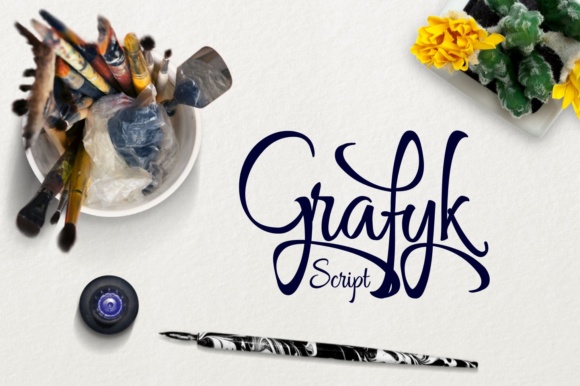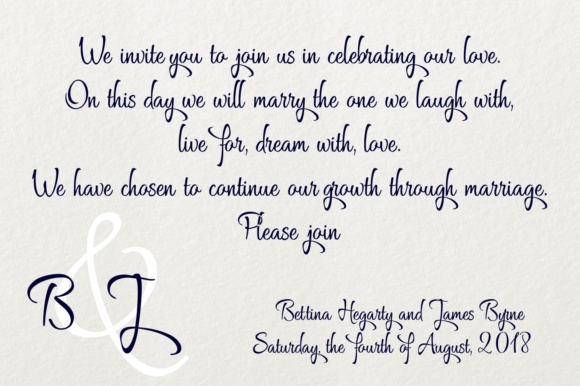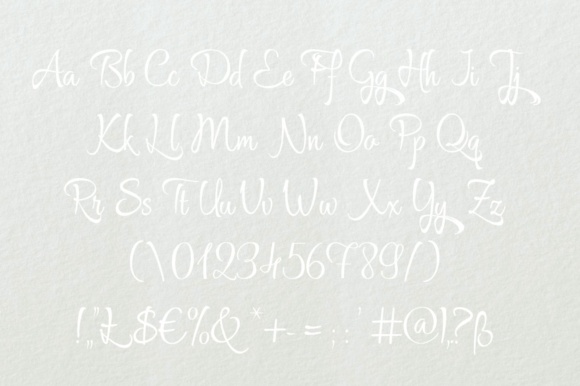
Grafyk Font
About Grafyk Font
Grafyk is a gorgeous handwritten script, perfect for headlines and invitationals! This bold and bouncy script font has a calligraphic feel without the fuss, so you can retain some simplicity and modernity in your works.